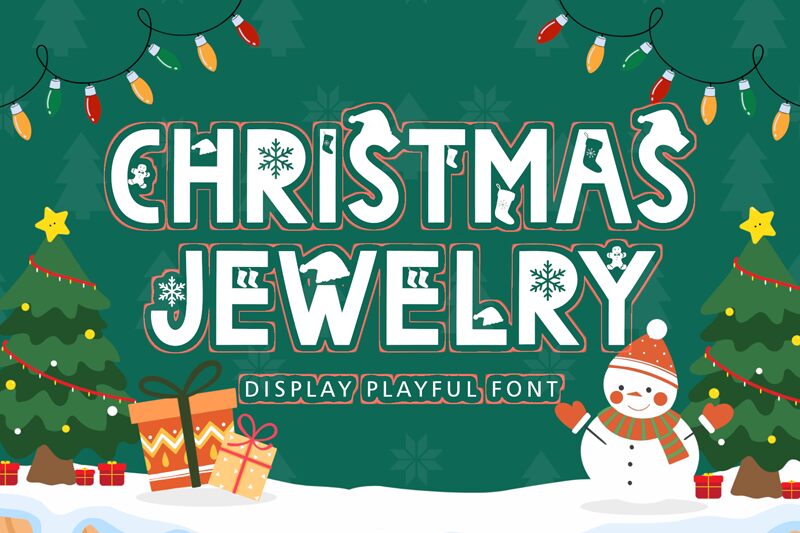
Christmas Jewelry font by Yoga Letter is a free decorative typeface primarily meant for festive uses. The typeface features unique letters with ornaments such as stars, balls, and holiday bells that make reading or writing words with this typeface engaging. The font is holiday-associated and whimsical with an overall contemporary appearance. Another beneficial feature of this typeface that makes it stand out is its flexibility in combining letters to form new, creative words.
Use the free font in greeting cards for Christmas and the holiday season, Christmas dinner invitation cards, branding for winter-themed products, holiday flyers and posters, and lots more. The font would also be handy for personalizing items like Christmas balls or ribbons. Decorate Christmas and New Year banners, candy packaging, advent calendars, and much more useful things with this beautiful font.